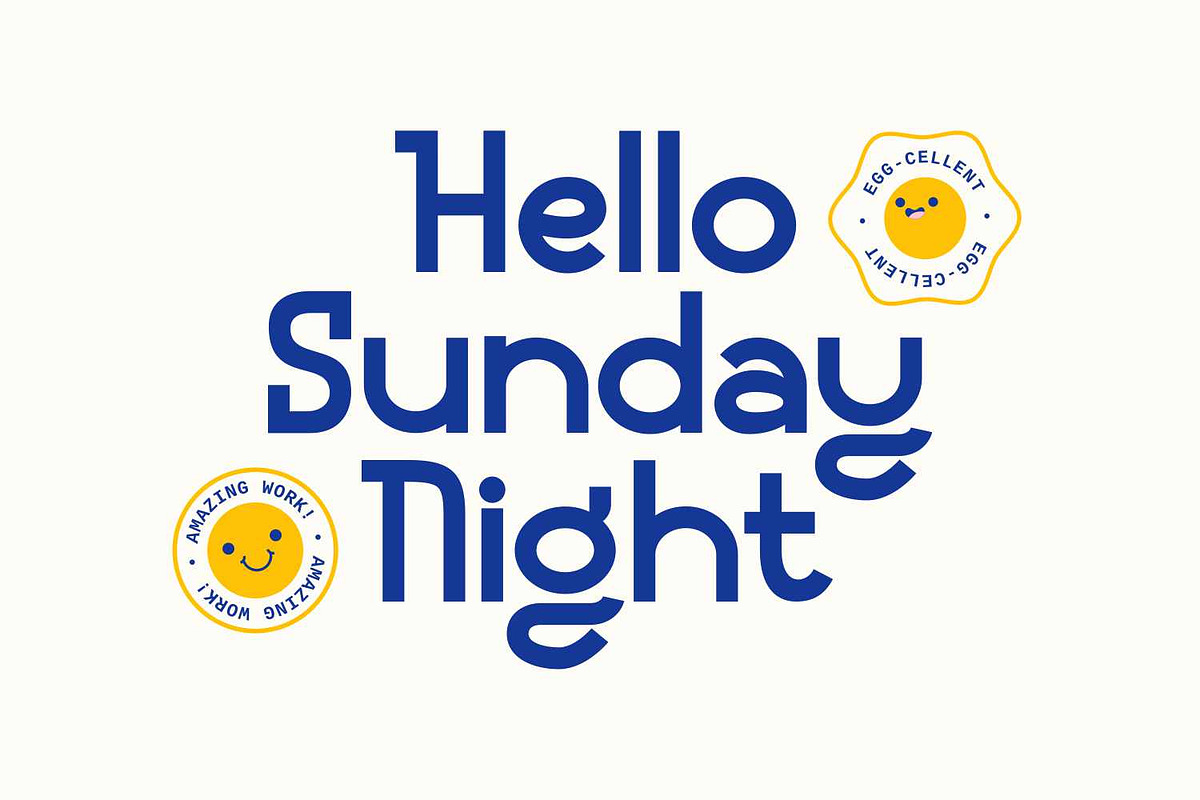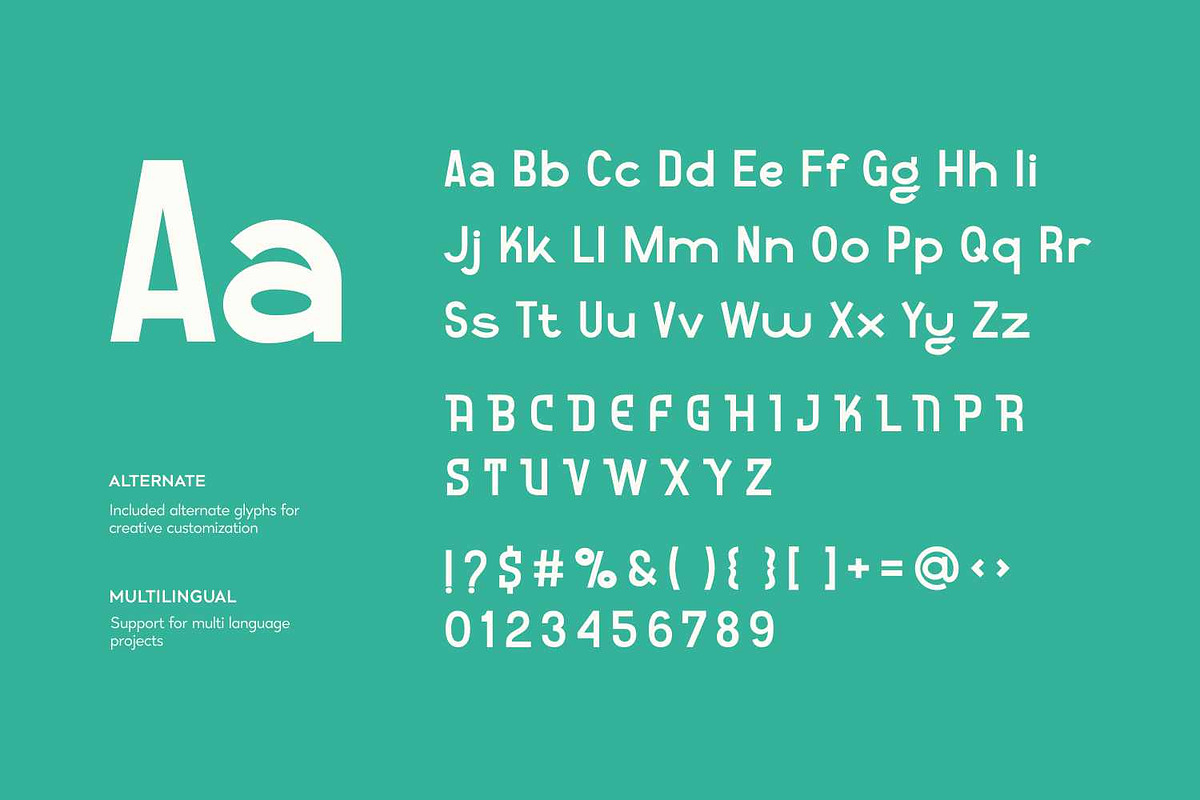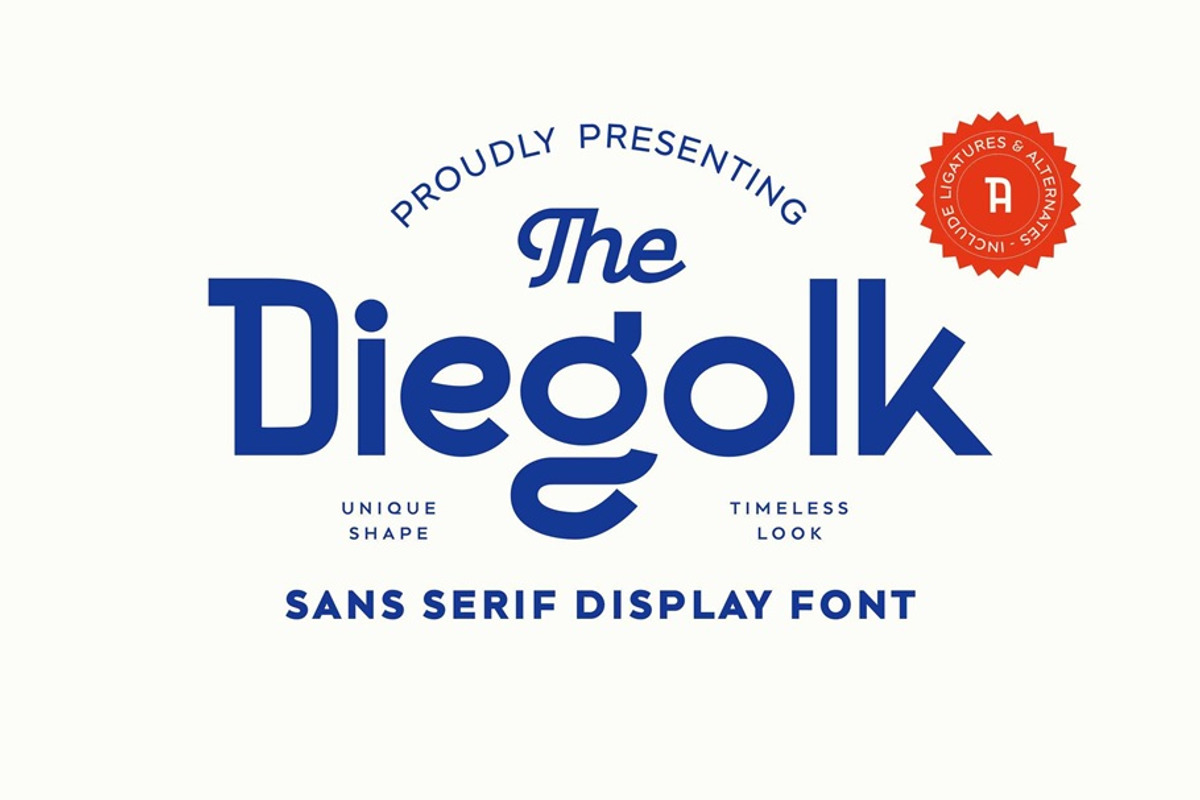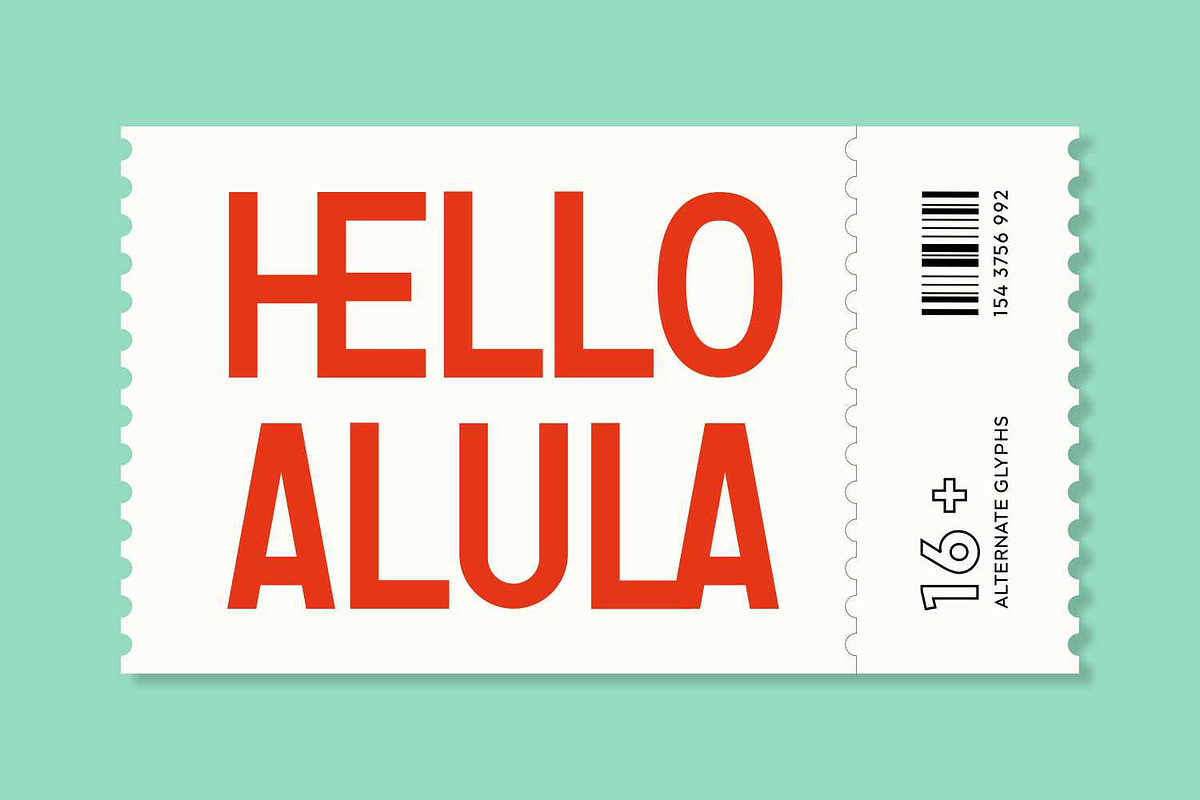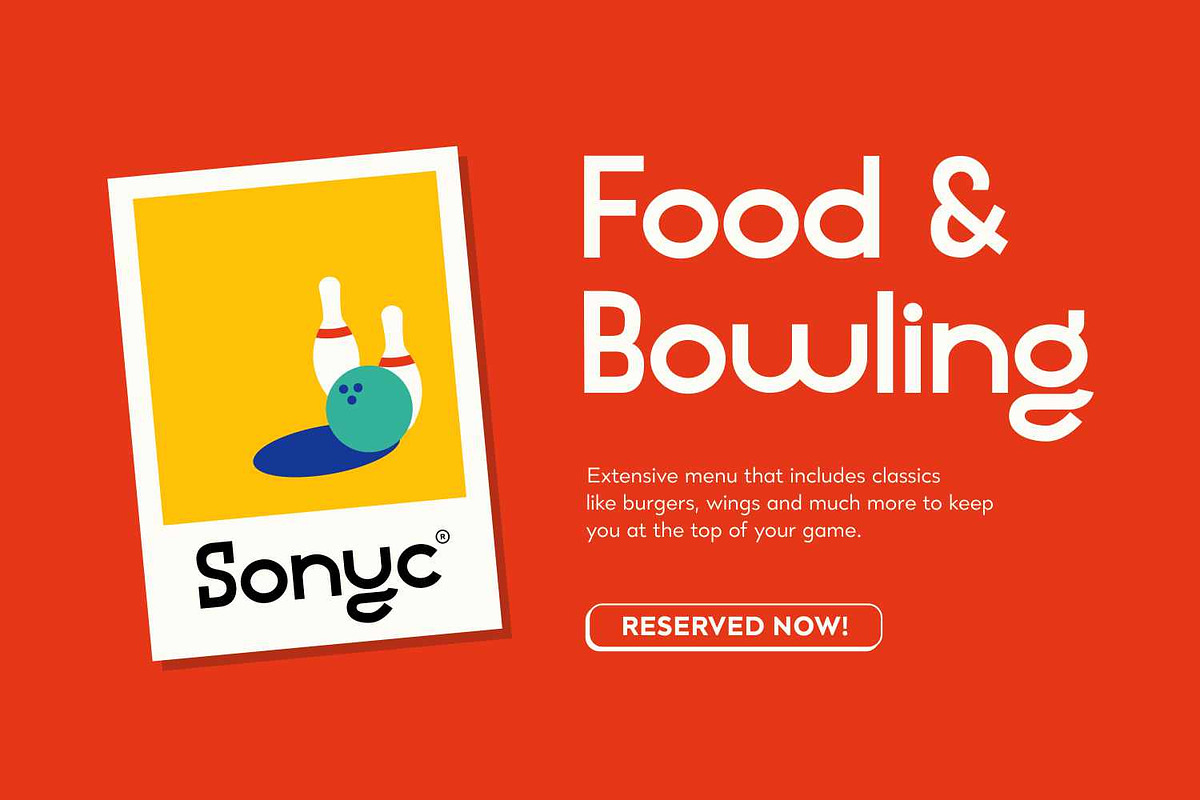
Diegolk
Diegolk is a bold sans serif display typeface with a playful yet timeless personality. Its letterforms combine clean geometric structure with soft, rounded terminals and unexpected quirks that give the font a distinctive, handcrafted charm.
Diegolk shines in headlines, logos, branding, posters, packaging, headlines, apparel, social media, quotes, display typography, and packaging where personality matters. Whether set in a bold poster, a food and beverage brand, or a retro modern logotype, Diegolk delivers a unique shape with a warm, approachable feel.